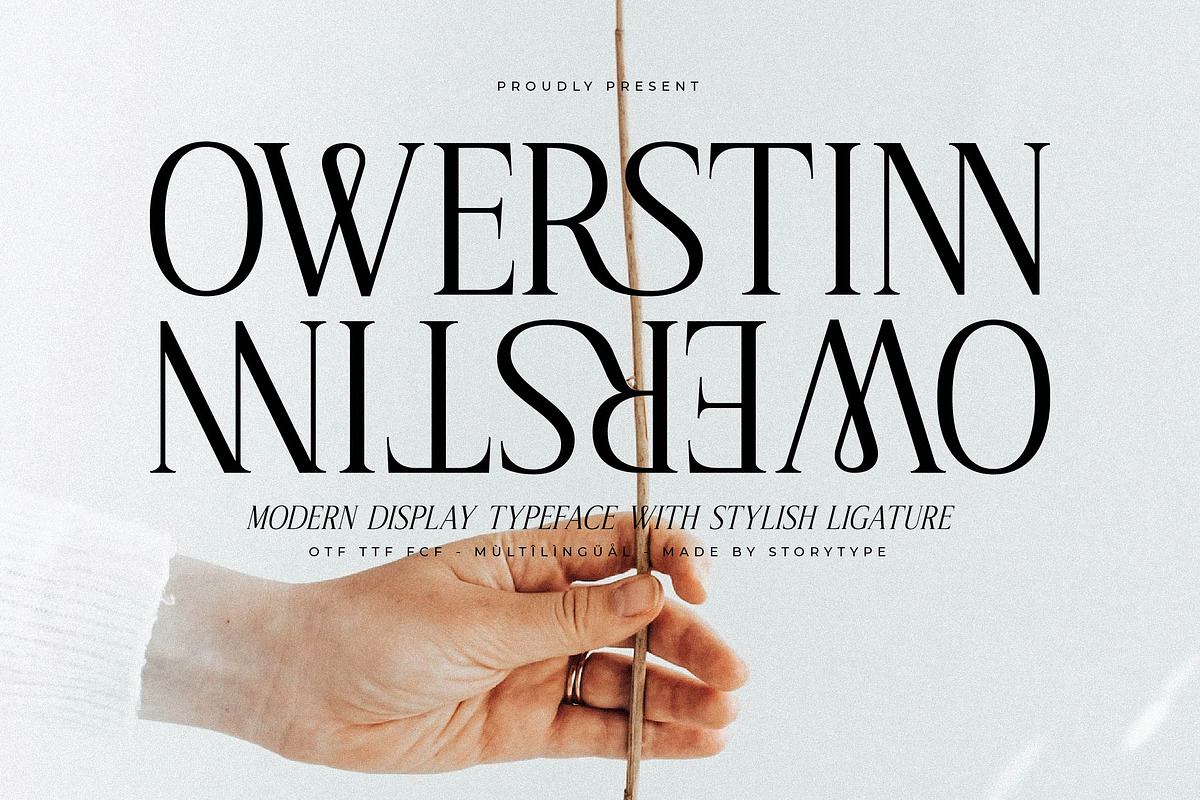
Owerstinn Modern Display Typeface Free Download
Command attention with the Owerstinn Modern Display Typeface Free Download — a bold, stylish typeface crafted for those who want their designs to make a powerful first impression. Featuring high-contrast strokes, clean lines, and geometric elegance, Owerstinn is perfect for editorial headlines, fashion branding, product packaging, and cutting-edge web layouts.
This modern display font brings a luxurious and contemporary feel to every project. Its sophisticated letterforms are designed to elevate minimal designs while still adding visual drama. Whether you’re creating a logo for a premium brand or crafting a sleek homepage hero text, Owerstinn delivers visual impact with confidence.